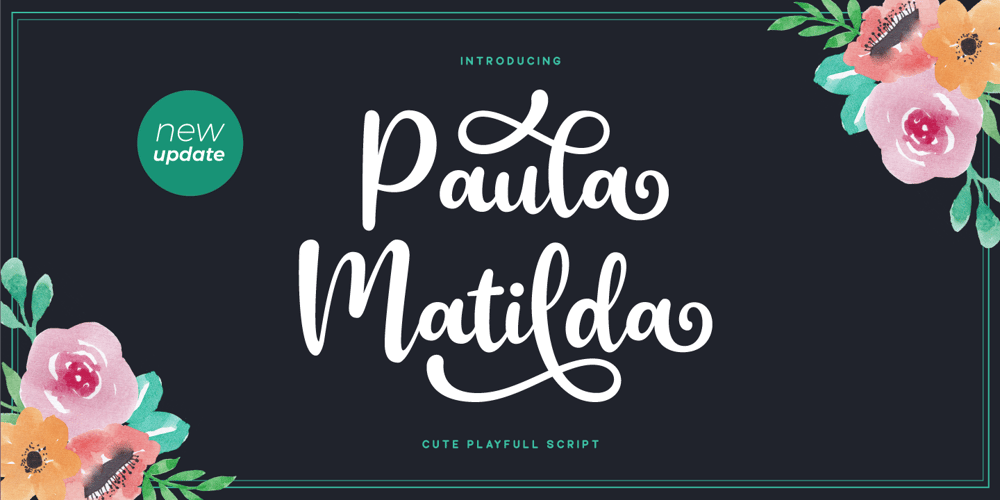
Paula Matilda Font Family was designed by Akhmad Reza Fauzi and published by Grezline Studio. Paula Matilda contains 1 styles and family package options. Paula Matilda is an elegant and flowing script font. It is PUA encoded which means you can access all of the glyphs and swashes with ease! It features a varying baseline, smooth lines, gorgeous glyphs and stunning alternates. It maintains its classy calligraphic influences while feeling contemporary and fresh. Fall in love with this script font and bring your projects to the highest levels!Feature :- A lot of Alternates ( With a Total of 480+ Glyphs )- Multilingual Language- Works on PC & Mac- Simple installations- Accessible in the Adobe Illustrator, Adobe Photoshop, Adobe InDesign, even works on Microsoft Word.